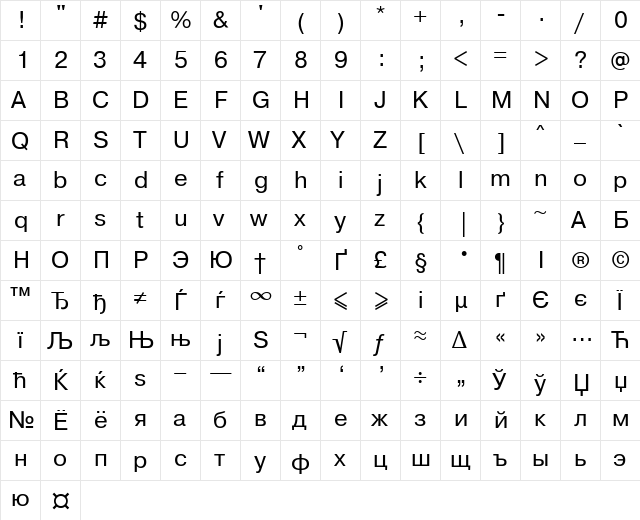
PragmaticaMACCTT Regular
Design Context for PragmaticaMACCTT Typeface
PragmaticaMACCTT offers clean, dependable letterforms without strong stylistic allegiance, making it a practical choice for designers who need flexibility.